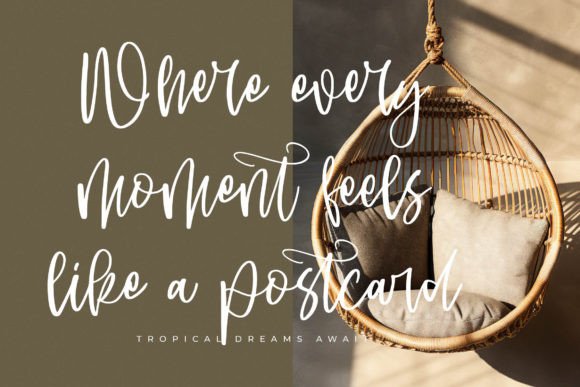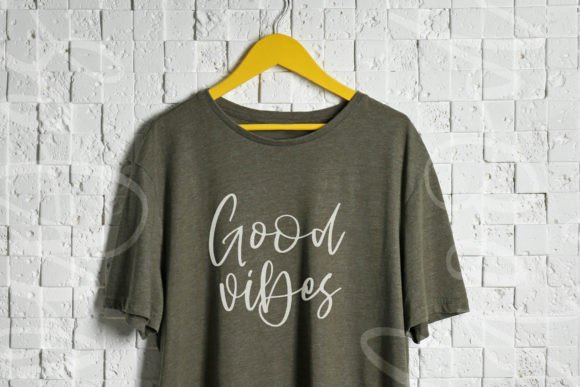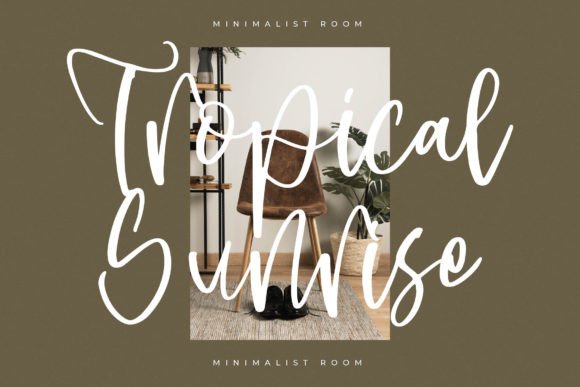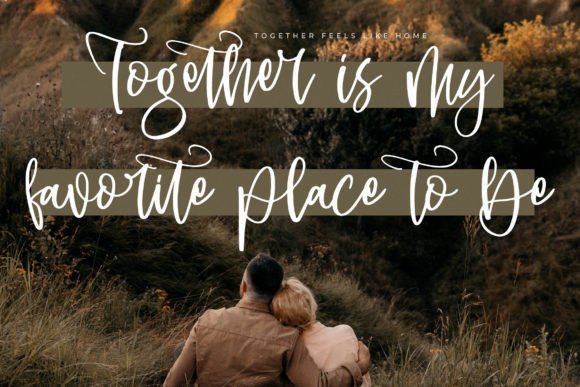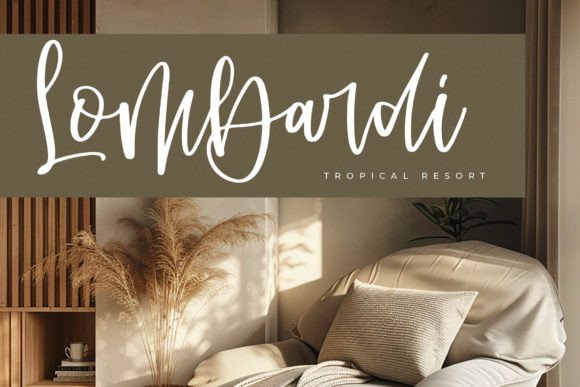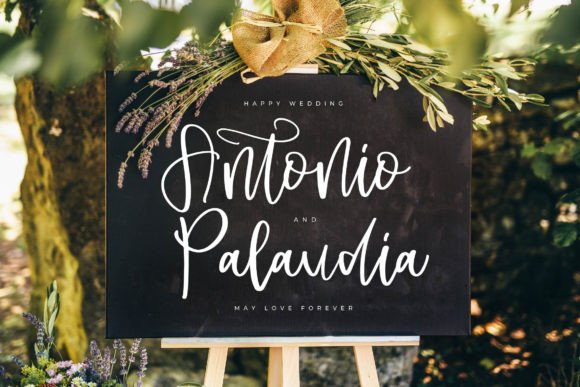
Introducing Alessandra Flowstar Font: The Epitome of Luxury Script Fonts
In the realm of typography, few fonts manage to capture the essence of luxury and elegance as effectively as Alessandra Flowstar. This modern handwritten script font, crafted by the talented team at Letterena, has been making waves in the design community for its unique blend of sophistication and charm. Whether you’re a designer looking to elevate your brand’s visual identity or a crafter seeking the perfect font for your next project, Alessandra Flowstar is an exceptional choice.
What Makes Alessandra Flowstar Stand Out?
Alessandra Flowstar is not just another script font; it’s a statement piece. Its fluid strokes and elegant ligatures bring a sense of movement and grace to any project it’s applied to. The font’s design is meticulously crafted to ensure that it looks stunning in various applications, from high-end logos and branding projects to more personal and creative endeavors like homeware designs, product packaging, and custom apparel.
One of the key advantages of Alessandra Flowstar is its incredible versatility. This luxury script font is suitable for a wide array of projects, including:
- Logos and Branding Projects: Create a lasting impression with a logo that exudes elegance and sophistication.
- Homeware Designs: Add a touch of luxury to your home decor with custom typography that reflects your unique style.
- Product Packaging: Elevate your product’s presentation with a font that communicates high quality and attention to detail.
- Mugs, T-shirts, and Merchandise: Personalize your items with a stylish and modern font that stands out.
- Quotes, Posters, and Invitations: Make your message memorable with a font that is both beautiful and impactful.
- Book Covers, Name Cards, and Greeting Cards: Add a professional and luxurious feel to your printed materials.
- Labels and Watermarks: Use Alessandra Flowstar to add a subtle yet sophisticated touch to your products or digital creations.
Why Choose Alessandra Flowstar?
Choosing Alessandra Flowstar for your projects comes with numerous benefits:
- Elegance and Sophistication: The font’s luxurious feel can significantly enhance the perceived value of your products or brand.
- Readability: Despite its elegant nature, Alessandra Flowstar maintains excellent readability, making it suitable for both headings and body text.
- Uniqueness: Stand out from the crowd with a font that is distinctive and memorable.
Alessandra Flowstar by Letterena is a game-changer for designers and crafters looking to infuse their projects with a sense of luxury and elegance. Its modern handwritten script style, combined with its versatility and readability, makes it an invaluable asset in any creative arsenal. Whether you’re aiming to create stunning branding materials, beautiful homeware, or captivating merchandise, Alessandra Flowstar is the perfect companion for your creative journey. Elevate your designs with a font that is as luxurious as it is unique.